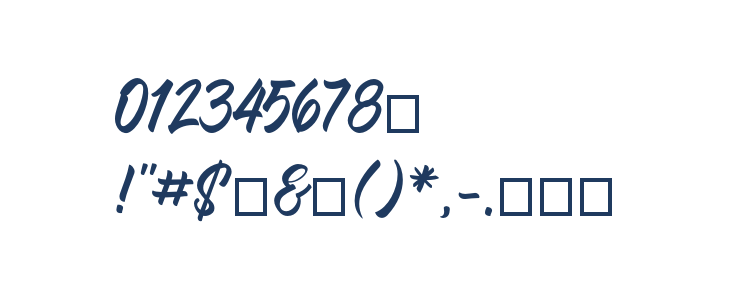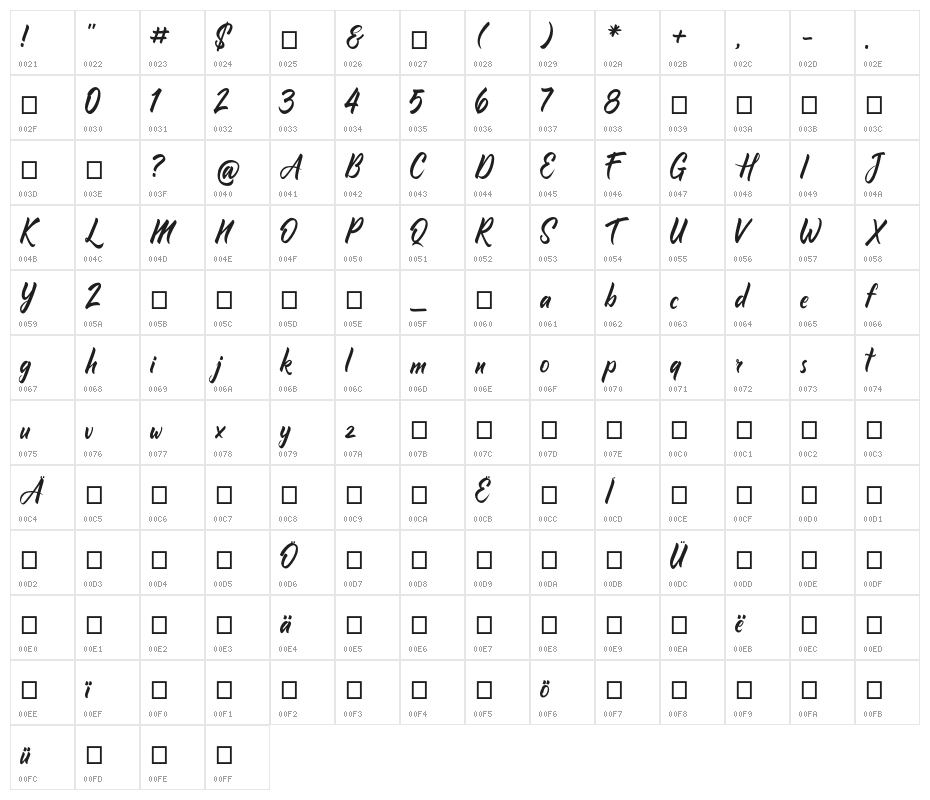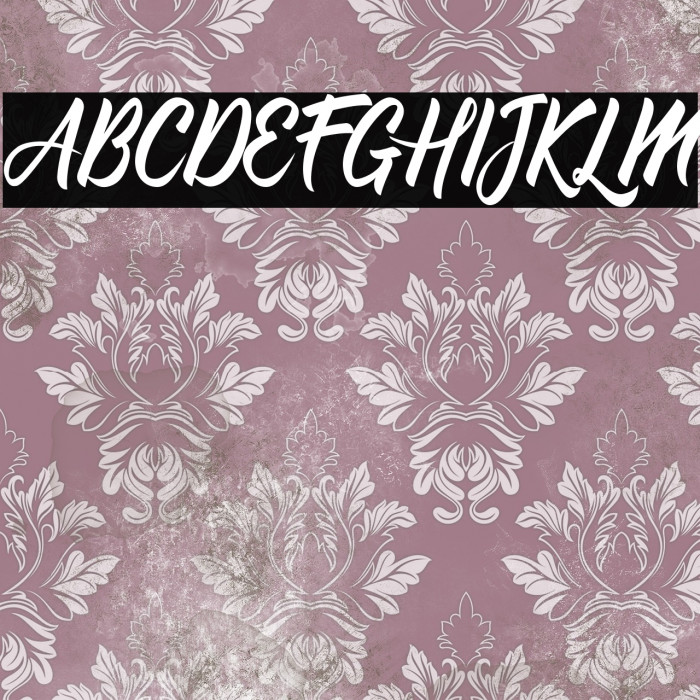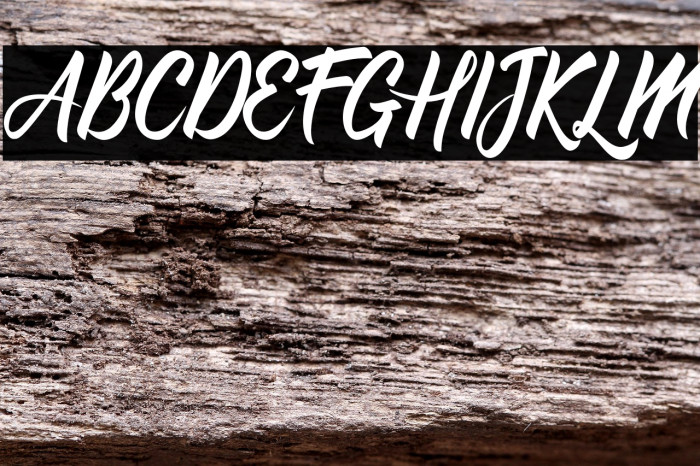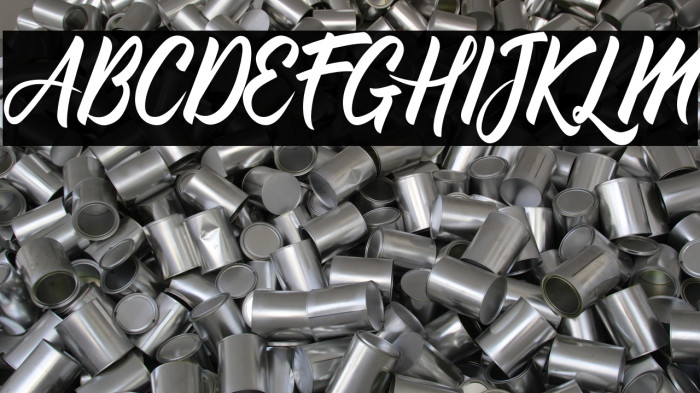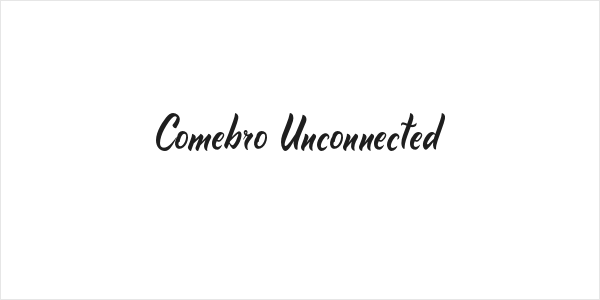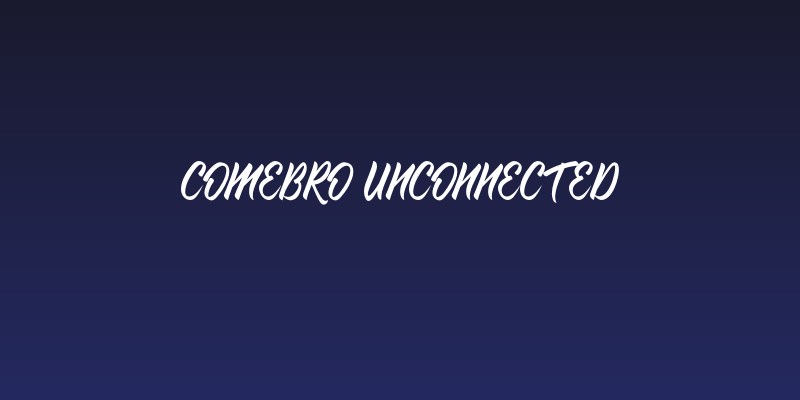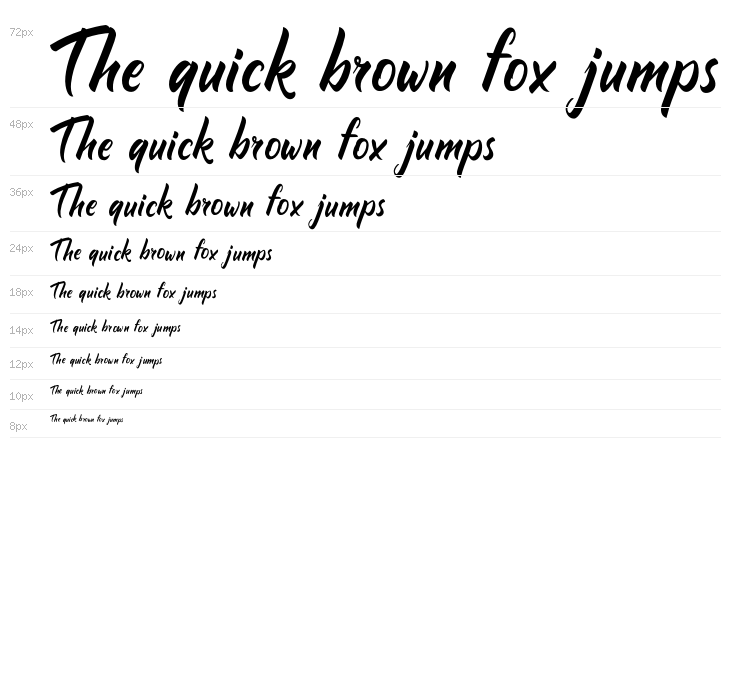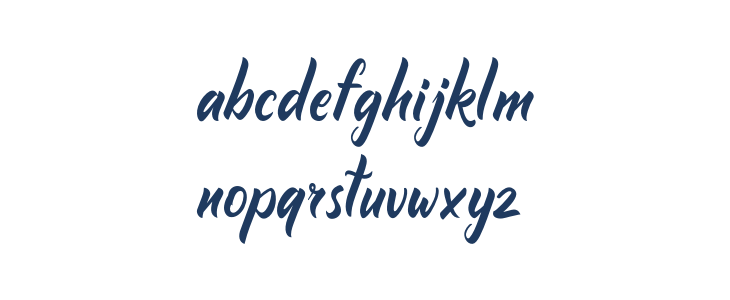
Comebro Unconnected Font
Comebro Unconnected Description
This font exhibits a dynamic and energetic script style, characterized by its bold and flowing letterforms. The uppercase letters are particularly striking, with a sense of movement and flair that suggests a handwritten quality. The lowercase letters maintain this fluidity, offering a cohesive and harmonious appearance. The numerals and special characters are consistent with the overall style, ensuring versatility across various uses. The font's strokes are thick and confident, providing a strong visual impact while retaining legibility. This makes it suitable for projects that require a personal touch or a sense of elegance and sophistication.